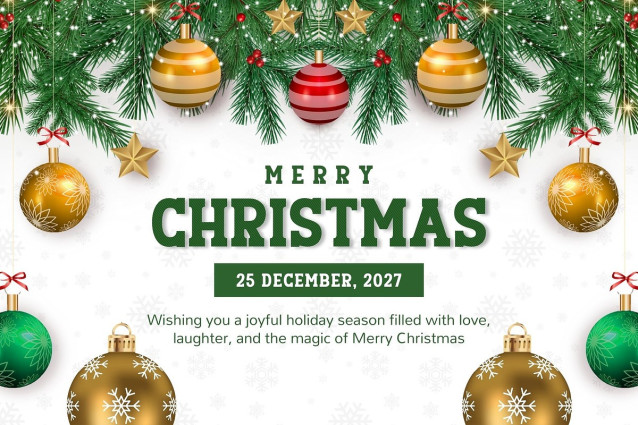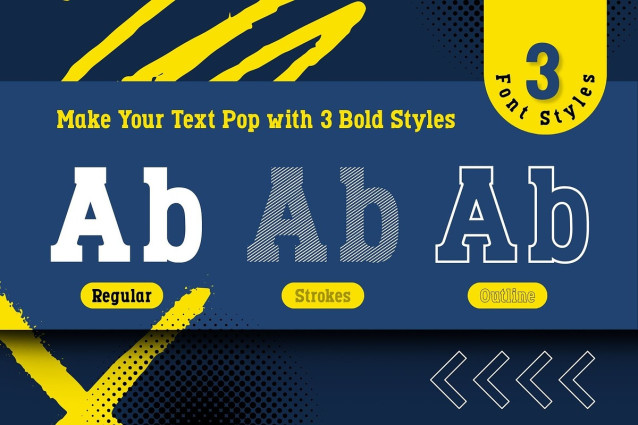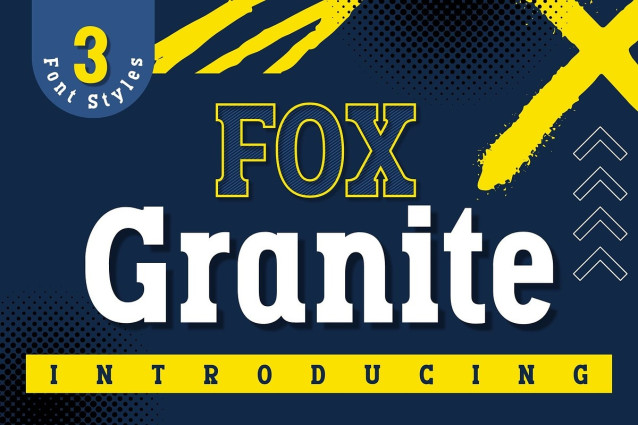
Fox Granite Font – a bold and versatile display font designed to make your text stand out with strength and style. Inspired by solid shapes and modern sports lettering, this font comes with 3 striking styles: Regular, Strokes, and Outline. Whether you want to create powerful headlines, sporty posters, or energetic branding, Fox Granite is here to give your project a confident impact.